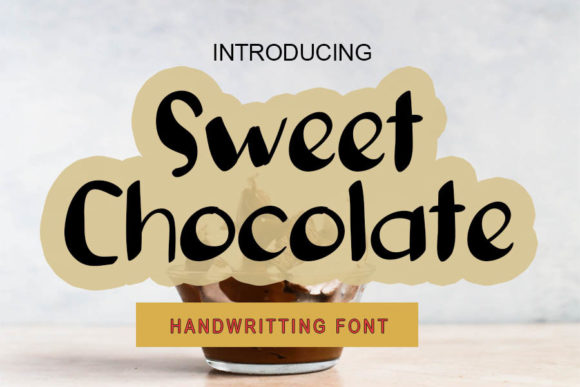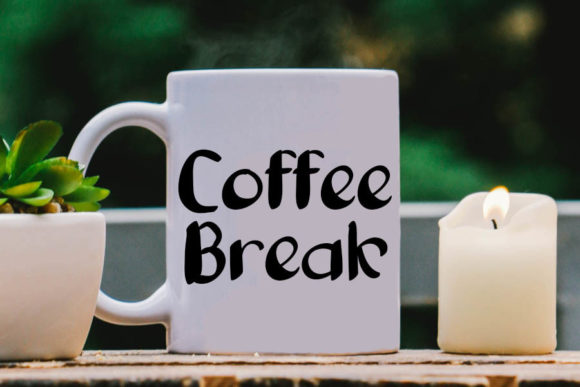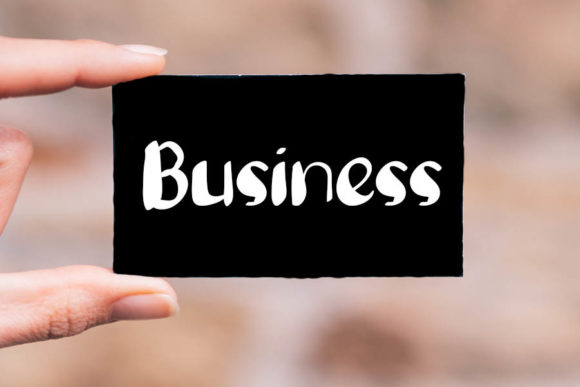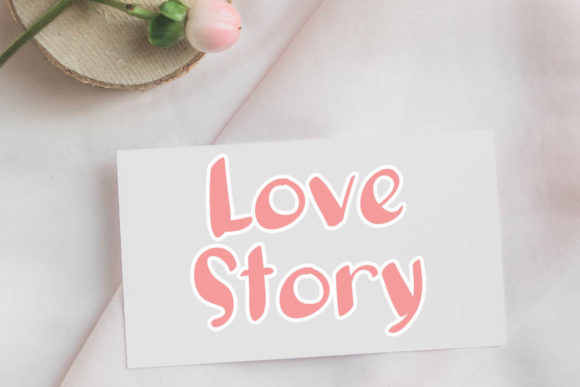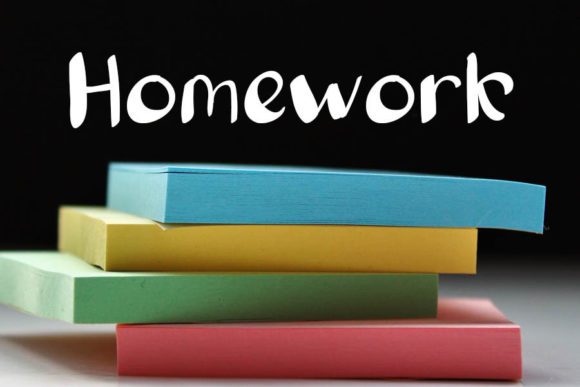
Sweet Chocolate Font
About Sweet Chocolate Font
Sweet Chocolate is a enchanting and delightful handwritten font that adds a touch of magic and beauty to your designs. With its balanced and varied letterforms, this font is carefully crafted to enhance the visual appeal of your projects.
The Sweet Chocolate font strikes a perfect balance between elegance and playfulness. Its letterforms have a whimsical and charming quality that captivates the eye. Each character is carefully designed with attention to detail, creating a harmonious flow and aesthetic appeal.
Whether you’re working on invitations, greeting cards, logos, branding, or any other design project, Sweet Chocolate is a versatile font that can be used to create a magical and captivating look. Its unique style brings a sense of warmth and charm, making it suitable for a wide range of applications.
The letterforms of Sweet Chocolate are neither too thin nor too thick, allowing for legibility and readability across various sizes and contexts. This makes it an ideal choice for both large headlines and smaller text elements, ensuring that your message is conveyed effectively.
The beauty of Sweet Chocolate lies in its ability to add a touch of elegance and uniqueness to your designs. It can transform a simple piece of text into a captivating and visually appealing element. Its handcrafted look gives it an authentic and personal feel, making it perfect for creating a sense of connection with your audience.
With Sweet Chocolate, you have the opportunity to infuse your designs with a touch of magic. Whether you’re creating wedding invitations, special event posters, or branding materials for a whimsical brand, this font will enhance the beauty and enchantment of your projects.
In summary, Sweet Chocolate is a beautiful and magical handwritten font that brings a sense of wonder and charm to your designs. Its balanced and varied letterforms, combined with its whimsical style, make it a versatile choice for a wide range of design projects. Use Sweet Chocolate to add a touch of elegance and enchantment to your invitations, greeting cards, logos, and more.